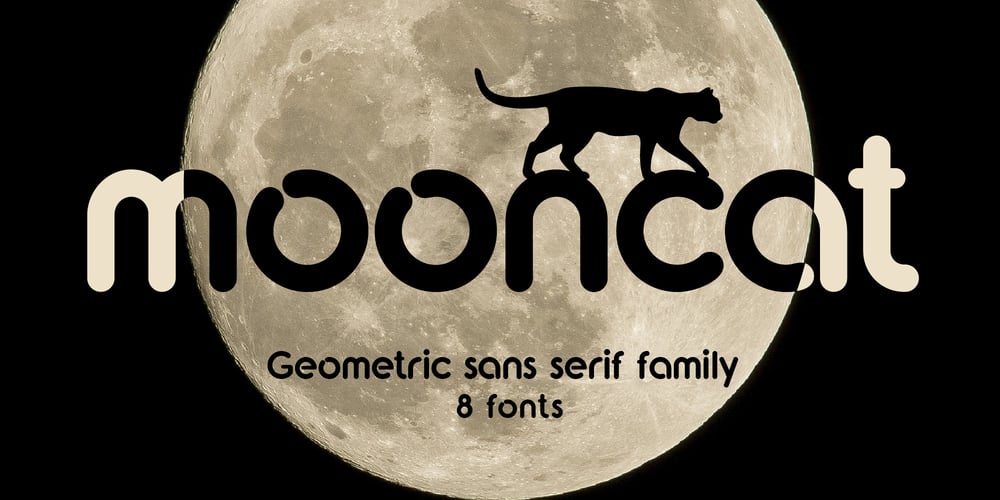
Mooncat
Mooncat font
Mooncat Font Family was designed by Volodymyr Berla and published by VladB. Mooncat contains 8 styles and family package options. Mooncat is a modern sans serif geometric font with rounded edges, includes upper and lower case characters, Latin, Cyrillic, Latin Eastern Europe, Turkish, Baltic and other.Mooncat family consists of 8 fonts, divided into 2 subgroups (according to the type of style – Op, Rg), and have the 4 types of thickness in each subgroup.Mooncat fonts will be useful in developing a brand, creating posters and other graphic products, and for word processing.